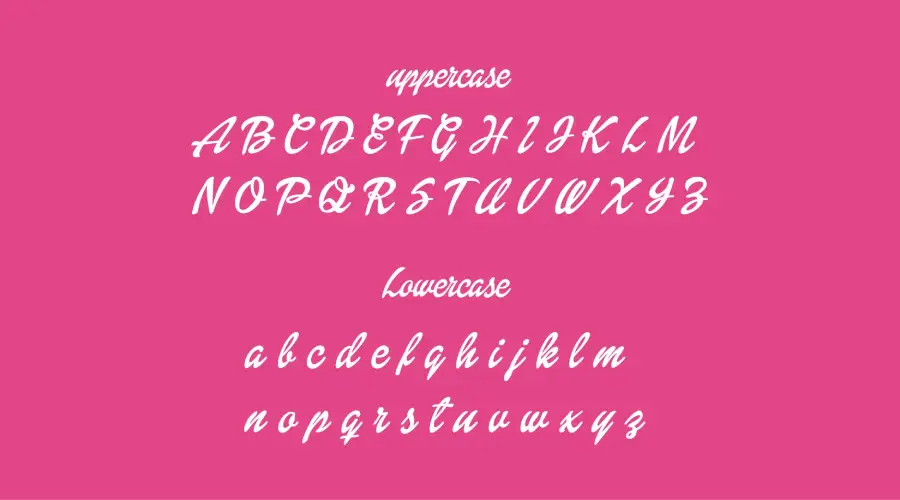
Barbie Font
by FFV Stuff
Looking for the Barbie font? That’s used in the recent Barbie movie in 2023, or do you want the logo font of the Barbie doll brands, cartoons, and animations? Then you’ve come to the right place!
Although the logo has undergone many changes over the years, the essence and test of the logo remain the same. The logo font used on the Barbie live-action movie and other Barbie doll packaging, cartoons, and animations are always in high demand for Barbie fans and designers.
Barbie is a well-known fashion doll by American toy and entertainment company Mattel, Inc. Barbie remains one of the most popular toys for children to this day.
In our article, we will give you details about the Barbie logo and the font used in it. We will also show you some similar fonts that you can use.
Barbie Original, Reuse and Present Logo Font
The original Barbie doll logo was introduced in 1959 and featured a script font with a soft pink color. The same logo font also re-emerged in 1999 with a 45-degree alignment. Then, in 2009, the original logo returned to the present. The logo is custom-designed, but we found two similar font to the logo called Dollie Script by Måns Grebäck and Barbie Font. See the image below for comparison.
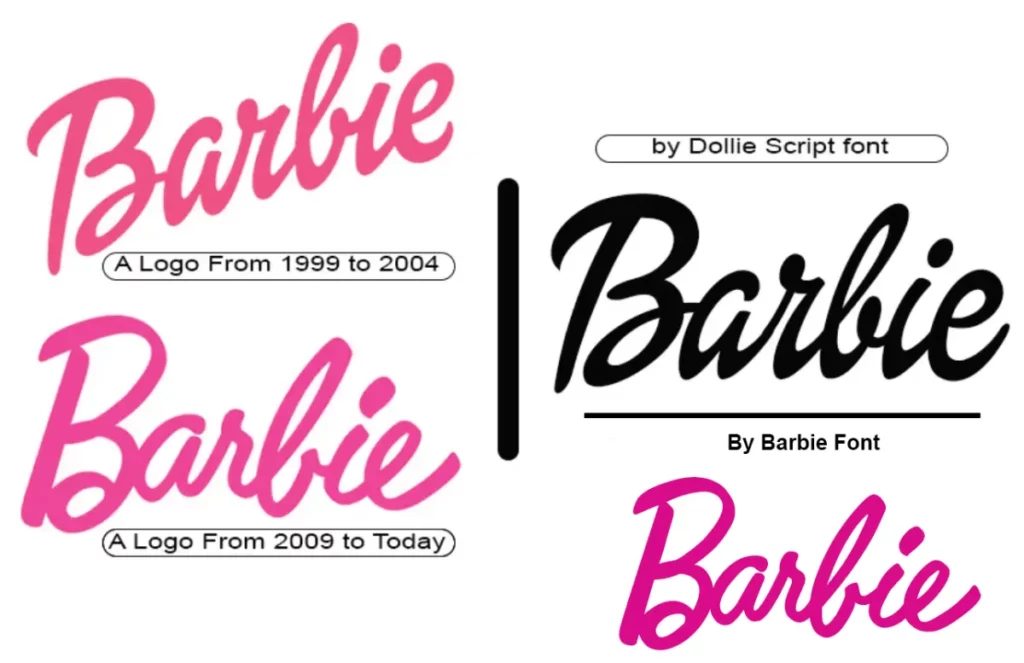
1975 Logo and Barbie Live Action Movie Font
In 1975, the logo changed to a modern and bold look. Now, the logo has a 3D effect on it. This particular logo was also used in the latest 2023 Barbie live-action movie. This Barbie movie earned 1.4 billion dollars at the box office.
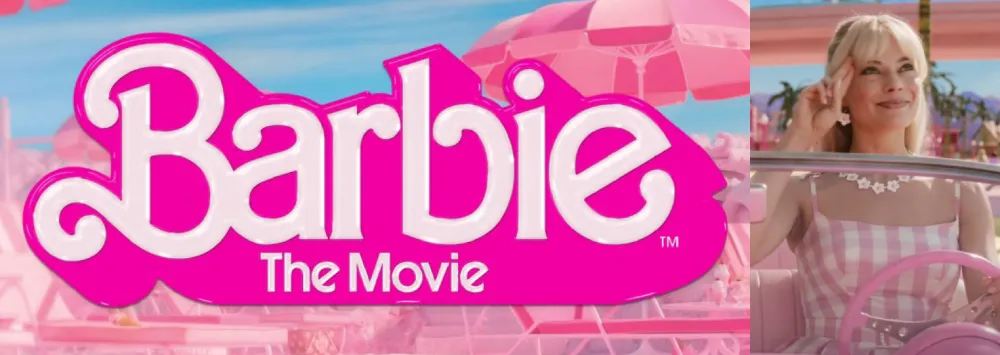
We found a close-match font for this logo, which is called Absolute Blonde Font. There is another font which is also similar to the logo is Bartex font. See below image for comparison.
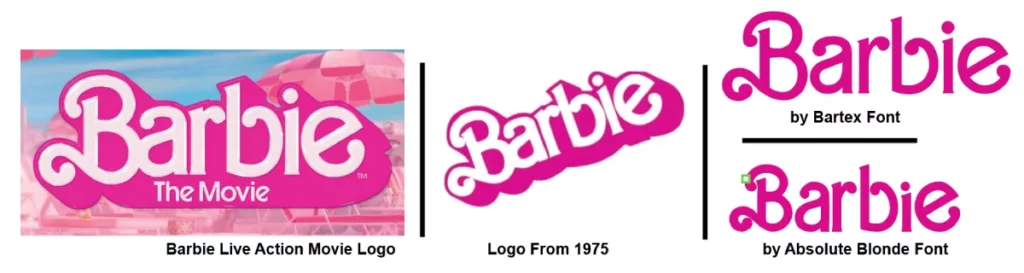
Barbie Font 90s
In 1991, a new logo redesign was made with a different touch. The font used in the logo also has an official font licensed by Mattel, Inc. in 1998. The font is called Barbie Medium Italic. Checkout the comparison image below.
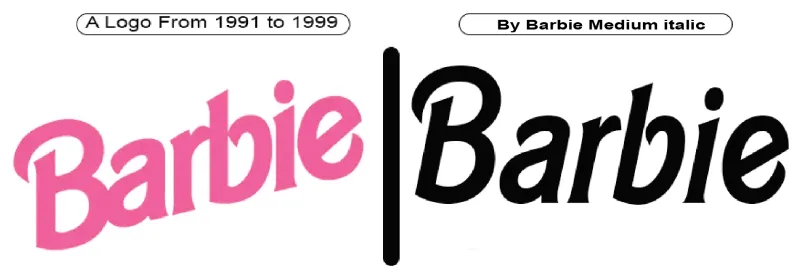
Barbie Font Y2k
In the year 2000s Barbie redesigned the logo font again. The similar font we found is called Astro Jack. Checkout the comparison image below.